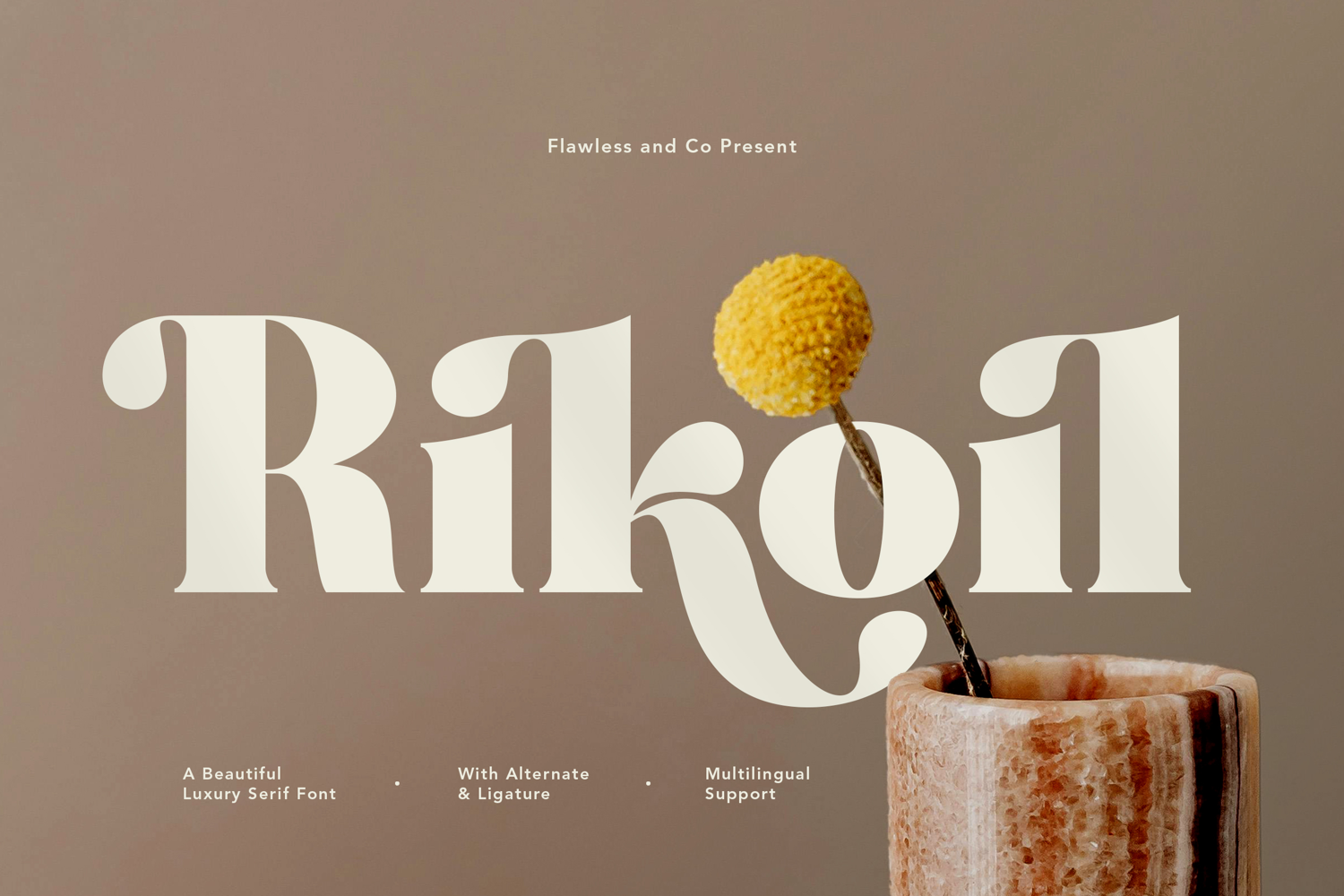
RIKOIL
Rikoil - Beautiful Serif Font
Rikoil is a stunning serif font that blends timeless elegance with modern sophistication. Featuring bold letterforms, refined curves, and graceful serifs, this typeface is designed to bring a sense of luxury and artistry to every project. With its stylish alternates and ligatures, Rikoil offers endless creative possibilities, making it perfect for designers who want to elevate their work with a touch of charm and class.
• Alternates & Ligatures
Who Should Use Rikoil?
Rikoil is made for designers, creatives, and brands who want to express elegance with a bold, sophisticated touch.
This font is perfect for:
• Luxury brands and fashion designers looking for timeless and stylish typography
• Creative agencies crafting distinctive brand identities and premium logos
• Editorial and magazine designers who need impactful and elegant headlines
• Product packaging, beauty, and lifestyle businesses wanting to stand out with refined type
• Social media creators and entrepreneurs who want a polished, professional look in their visuals
A Must-Have Font for Brand and Logo Creators and Designers
Rikoil is more than just a serif font—it’s a design statement. With its bold curves, refined details, and luxurious elegance, Rikoil gives every brand and logo a professional edge. Whether you’re building a high-end fashion identity, crafting editorial layouts, or creating timeless packaging, this font ensures your designs exude class and sophistication.
A Must-Have Font for Brand and Logo Creators and Designers
Rikoil is more than just a serif font—it’s a design statement. With its bold curves, refined details, and luxurious elegance, Rikoil gives every brand and logo a professional edge. Whether you’re building a high-end fashion identity, crafting editorial layouts, or creating timeless packaging, this font ensures your designs exude class and sophistication.
Suitable For:
• Brand identities & professional logo design
• Product packaging & label design
• Editorial layouts & magazine headlines
• Beauty, fashion & lifestyle branding
• Wedding invitations & luxury stationery
• Social media content & marketing visuals